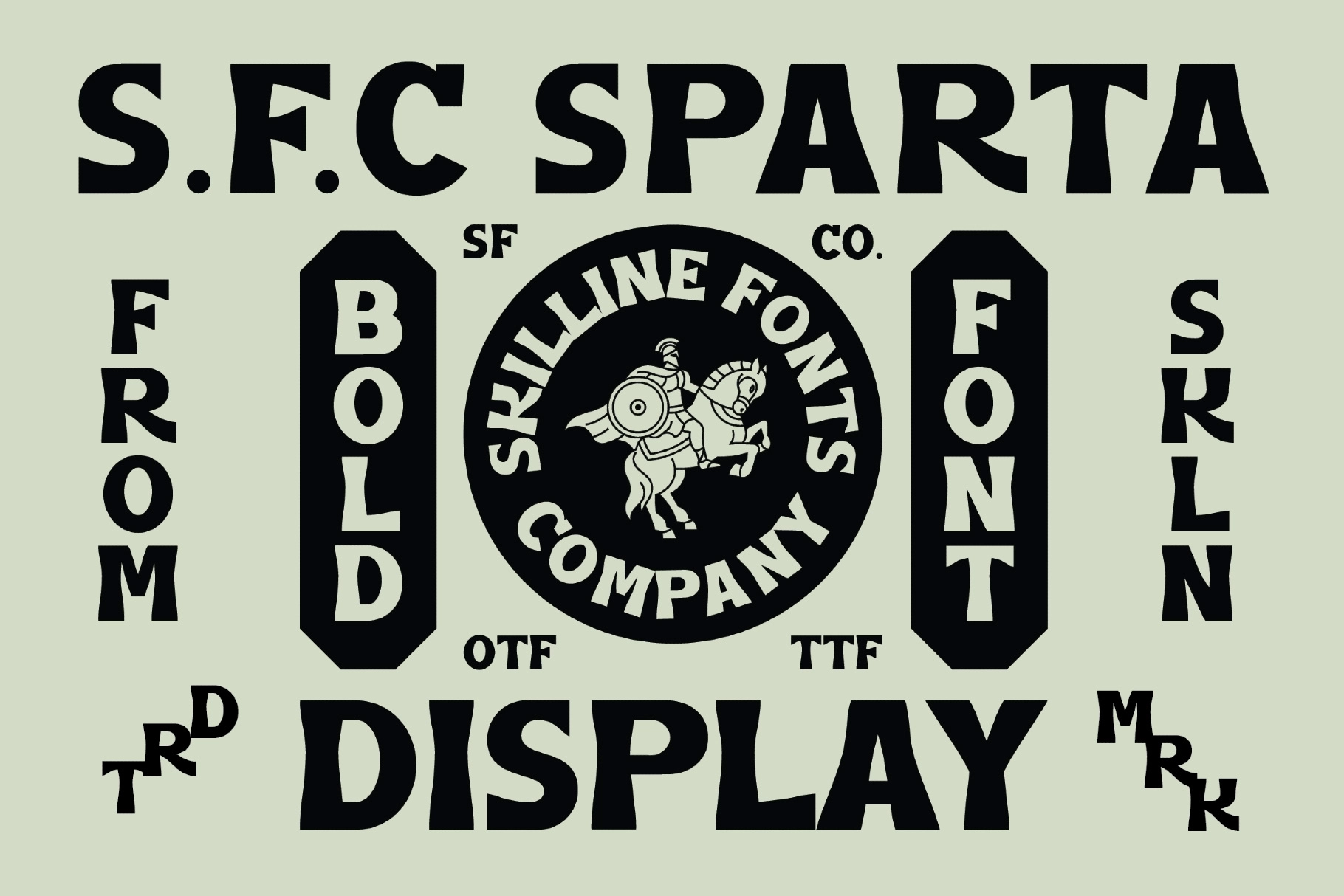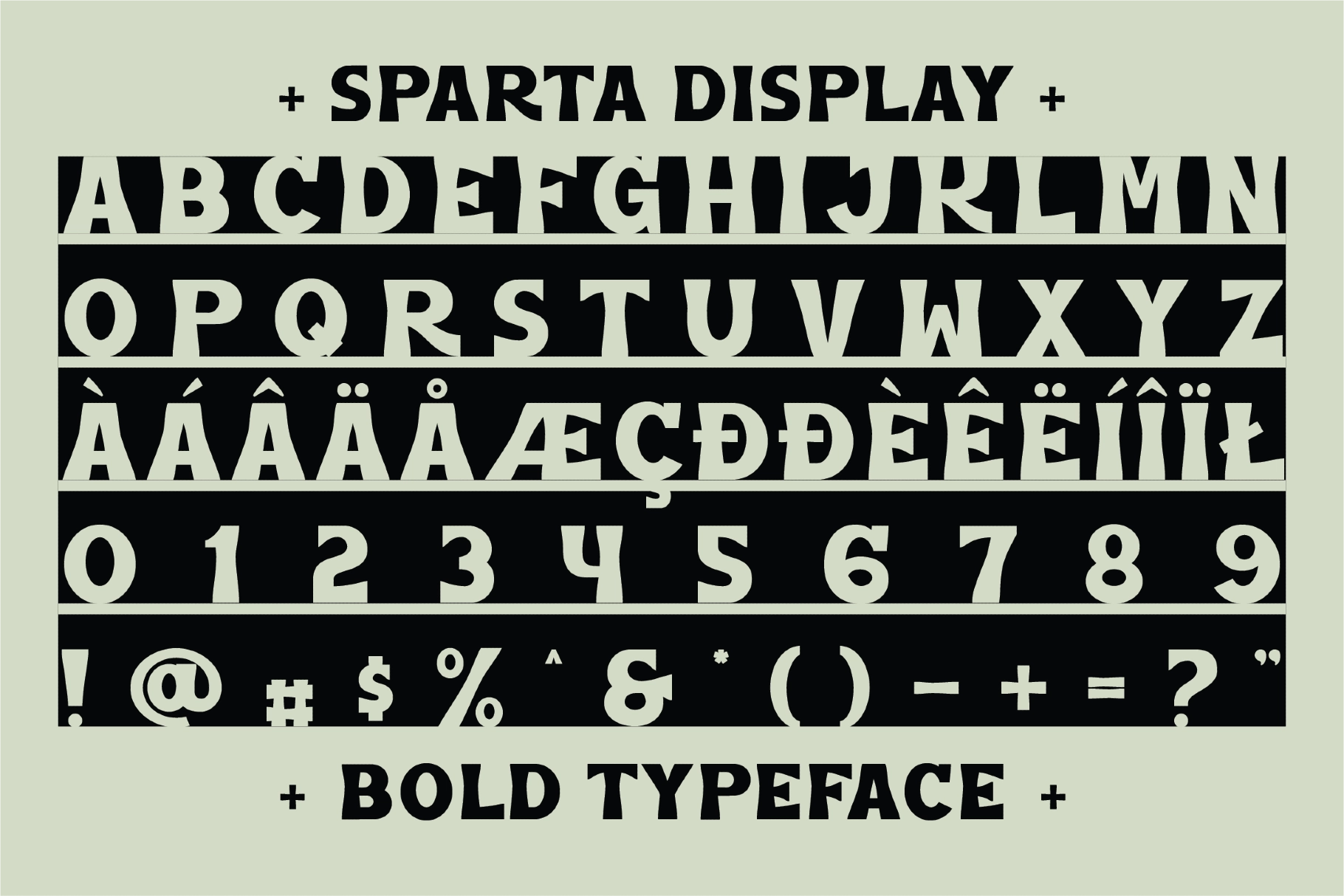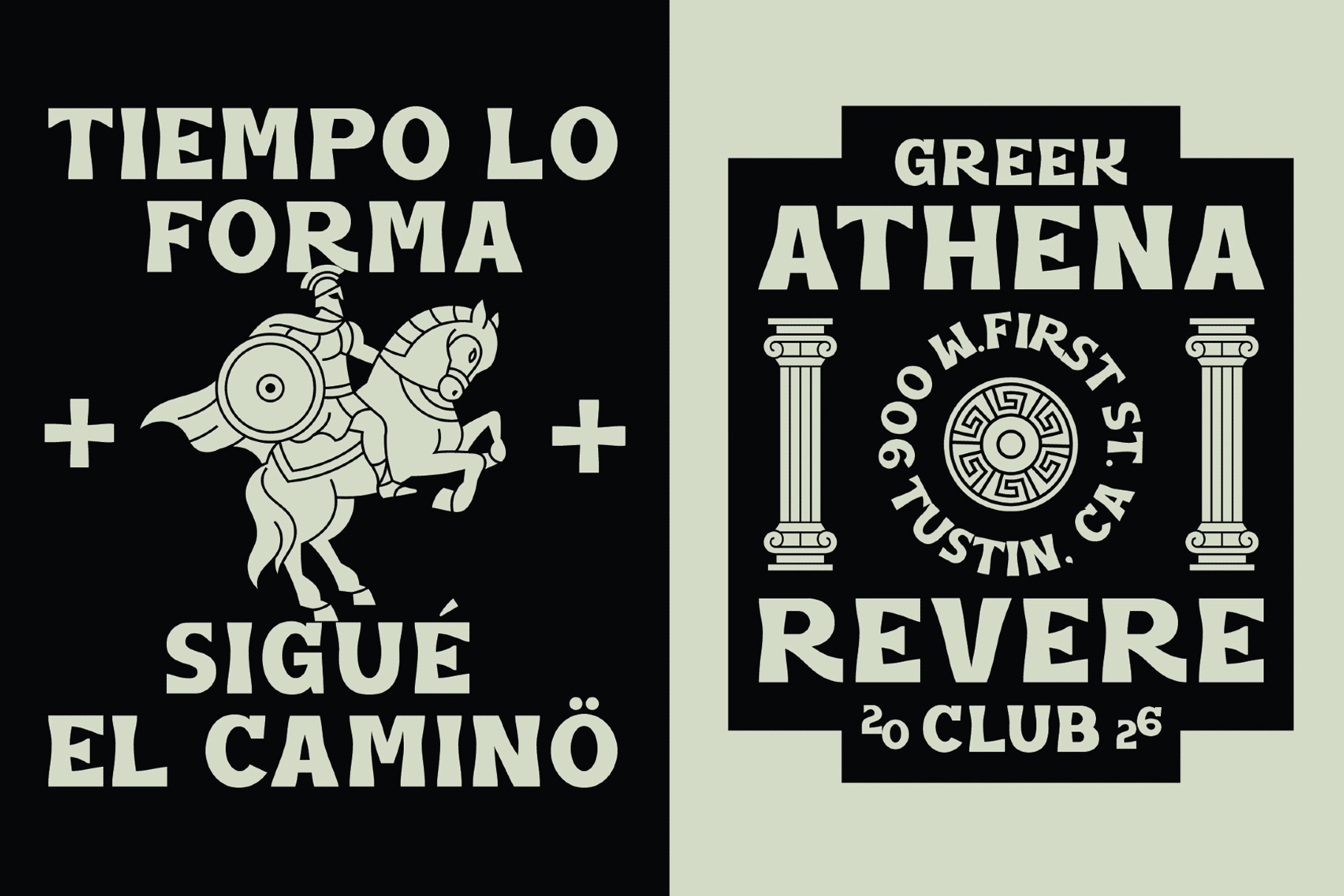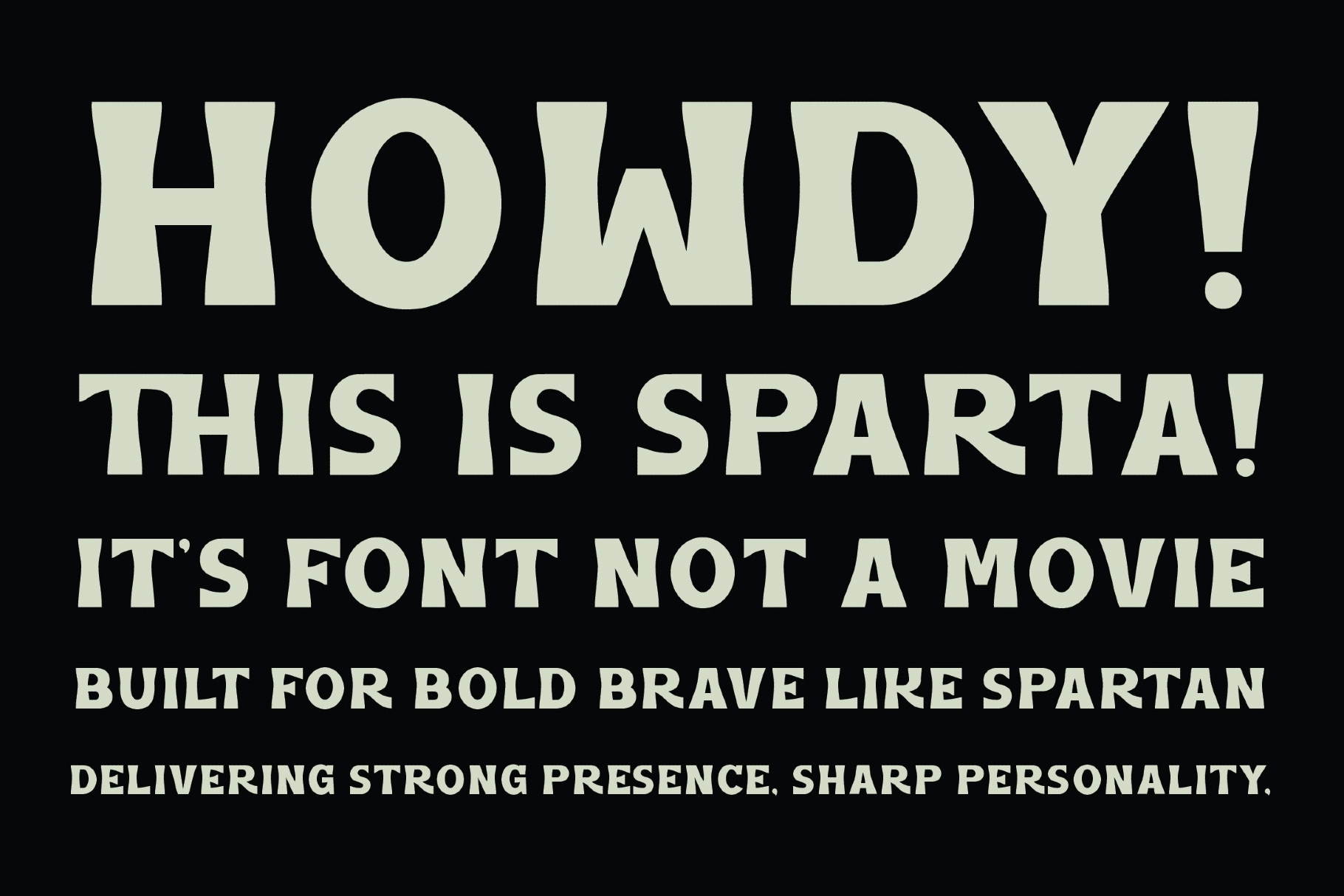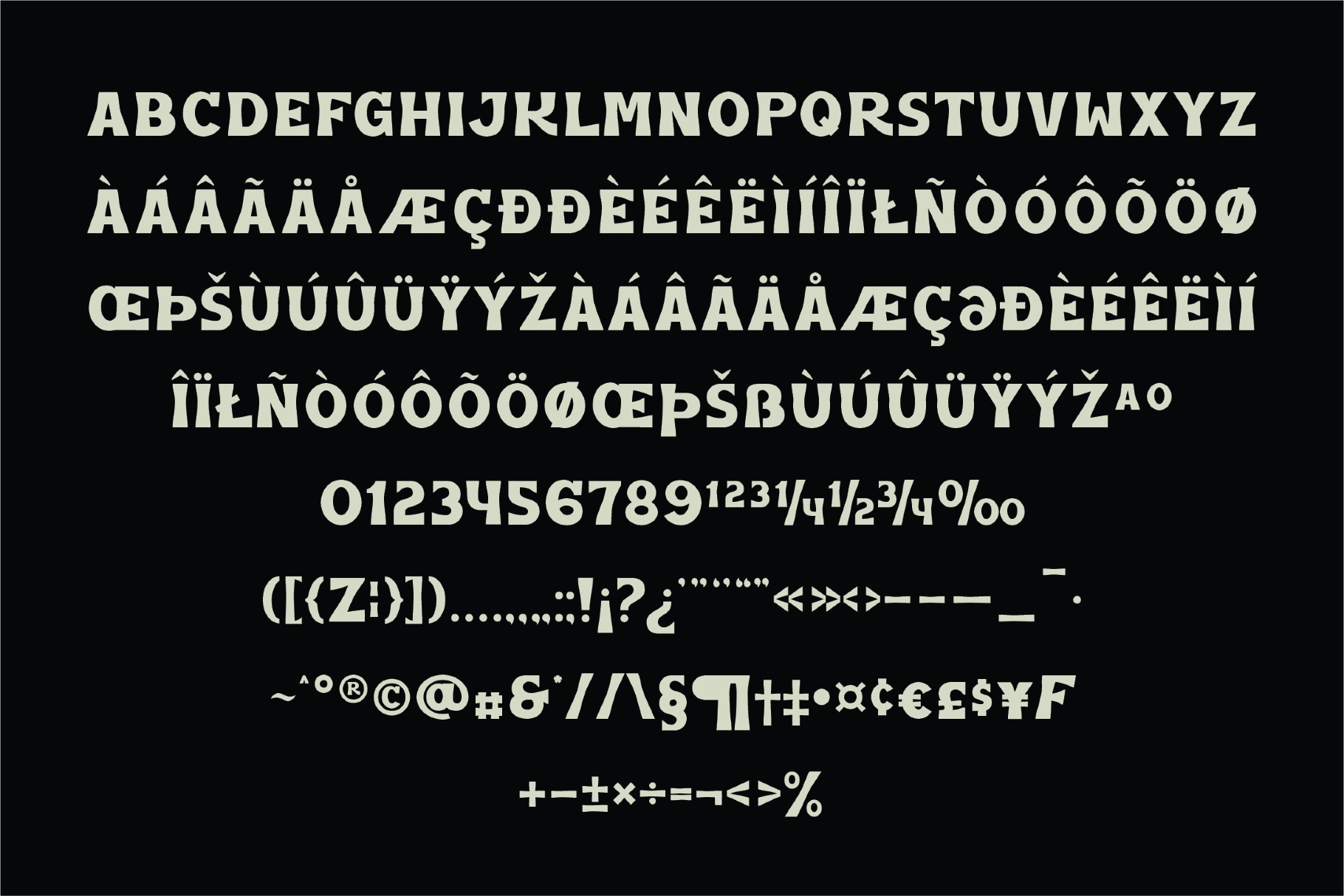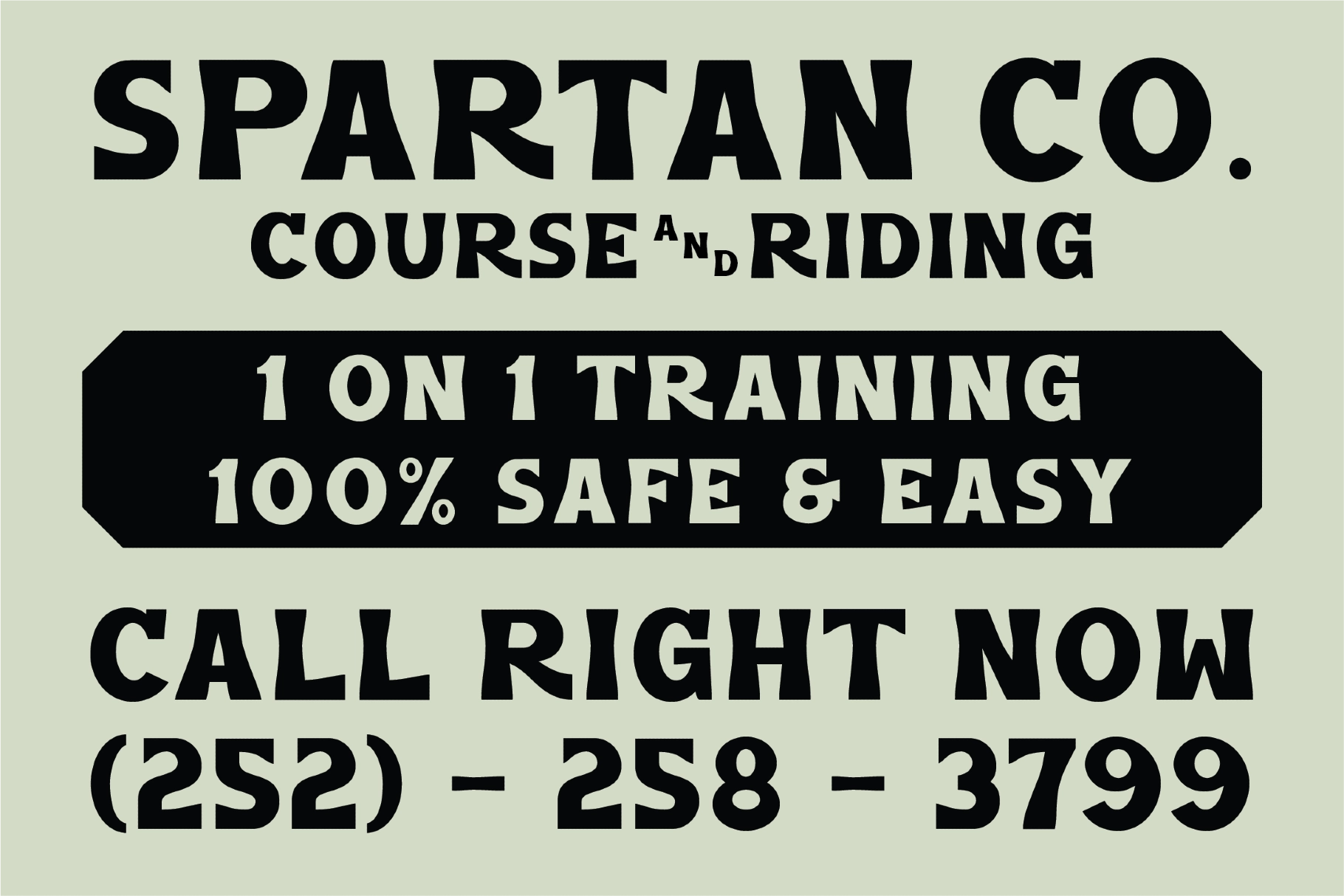
SFC Sparta Vintage Display Font
SFC Sparta
SFC Sparta Vintage Display Font is a bold retro-inspired typeface featuring strong curves, solid shapes, and confident proportions that echo the look of classic signage and vintage display lettering. With its high-impact design and timeless appeal, it delivers strength, masculinity, and clear readability in every letterform.
Designed to dominate headlines and visual identities, SFC Sparta shines in logos, posters, packaging, apparel, and signage. Its mix of vintage aesthetics and modern precision makes it a top choice for designers who want bold, heritage-inspired typography with a clean, professional touch.
Perfect for:
- Branding & logo design
- Vintage and retro posters
- Packaging, labels & merchandise
- Apparel, badges & signage
- Bold headlines & display titles
- Bold Display Typeface
- Vintage & Classic Signage Inspired
- Strong Curves & Solid Letterforms
- High Impact & Readability
- Display & Branding Ready
- Ideal for Print & Digital Use